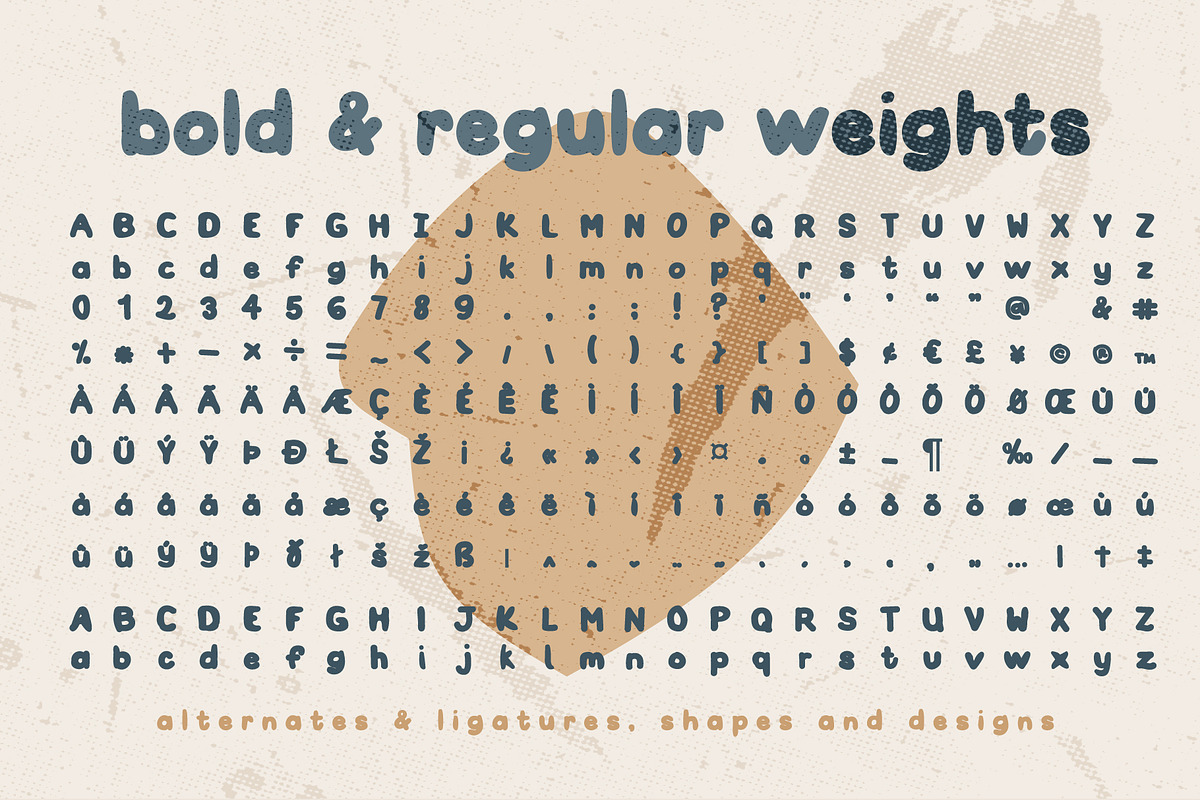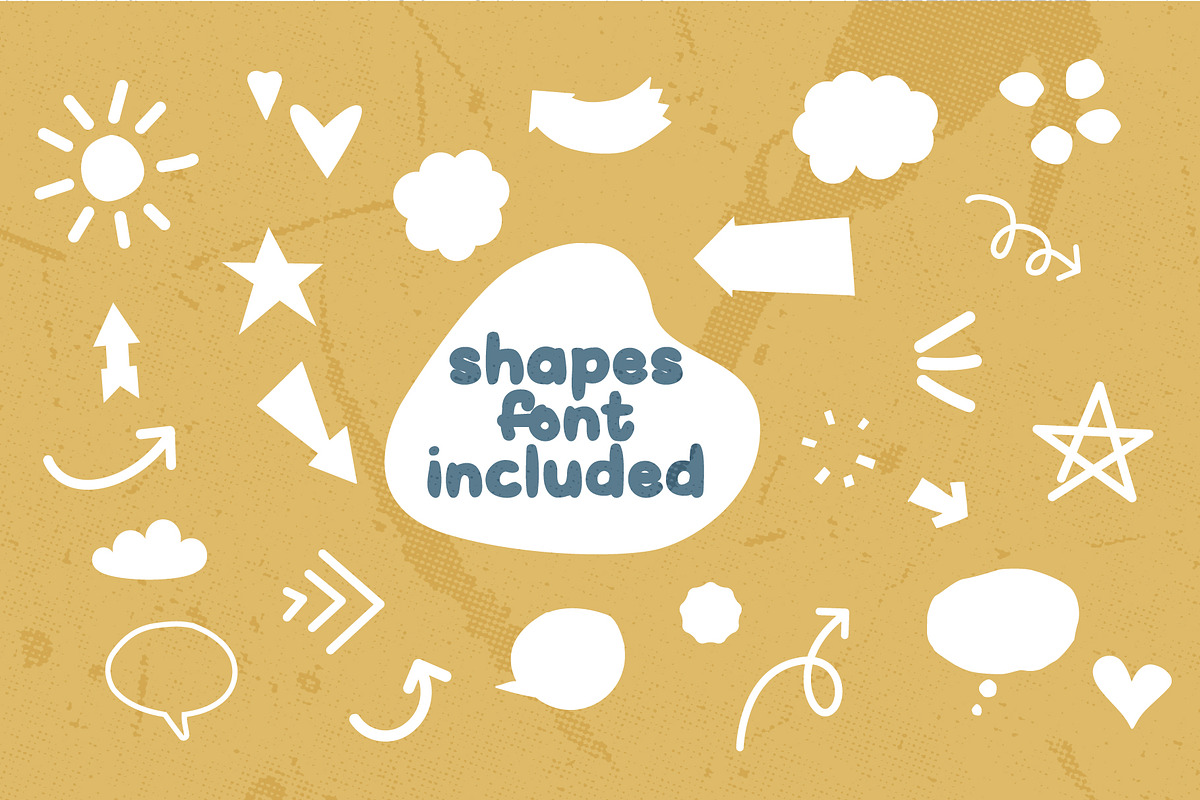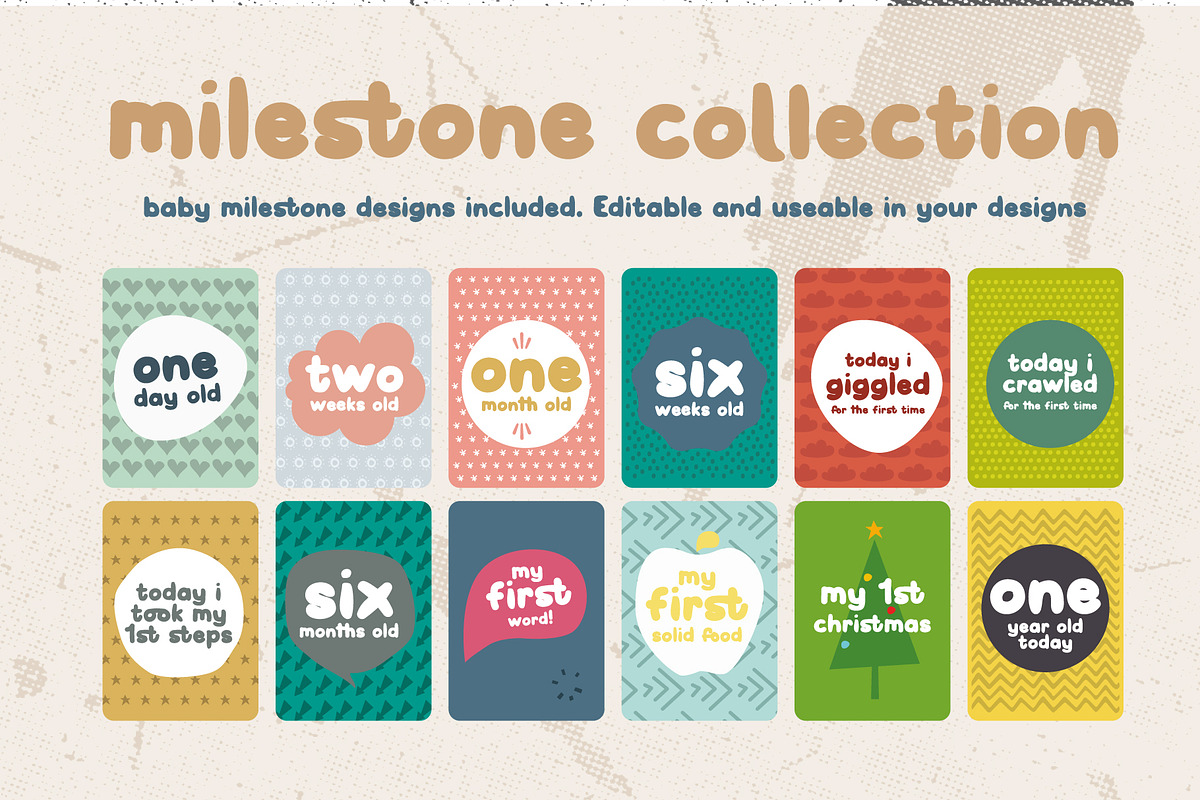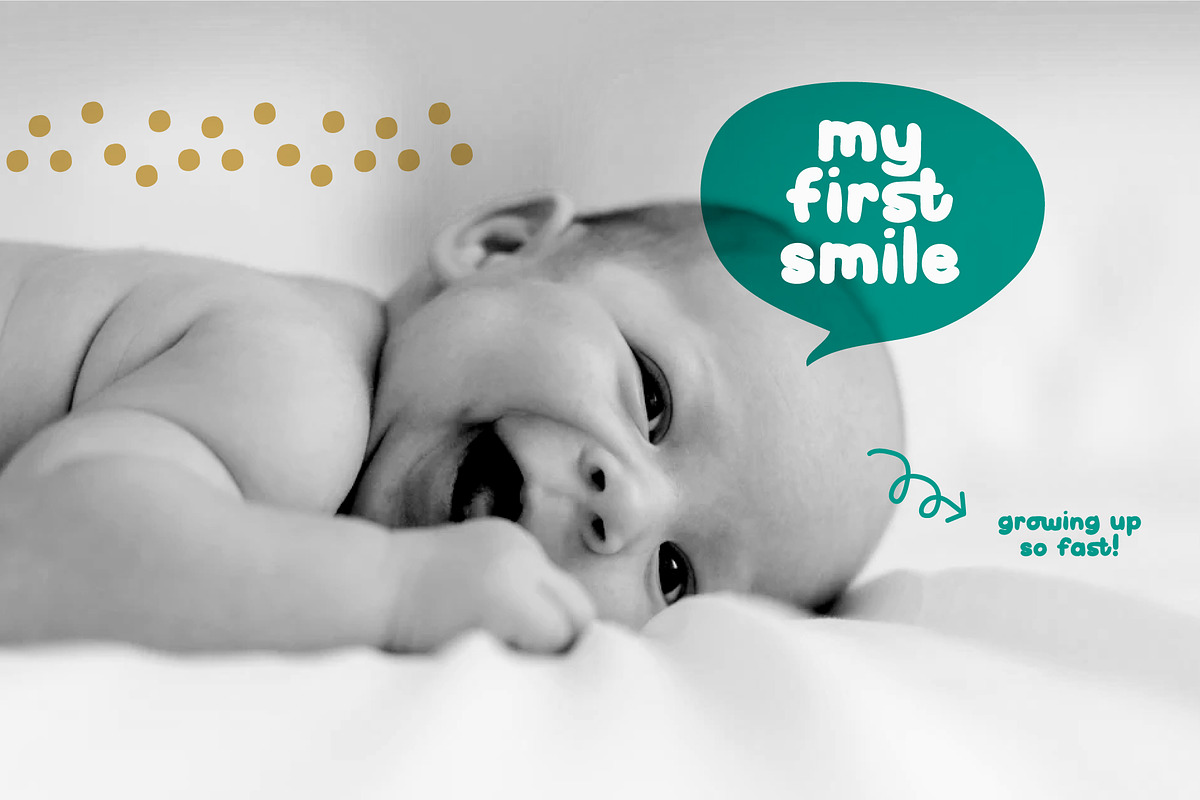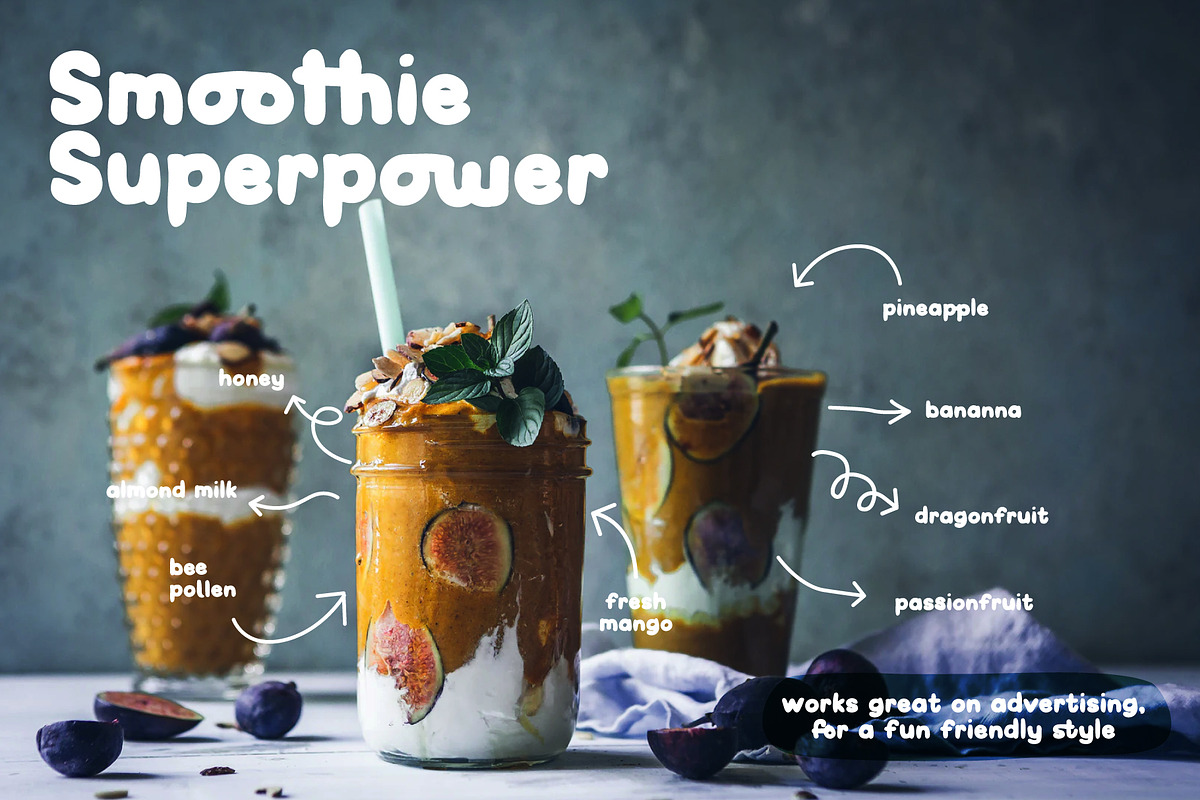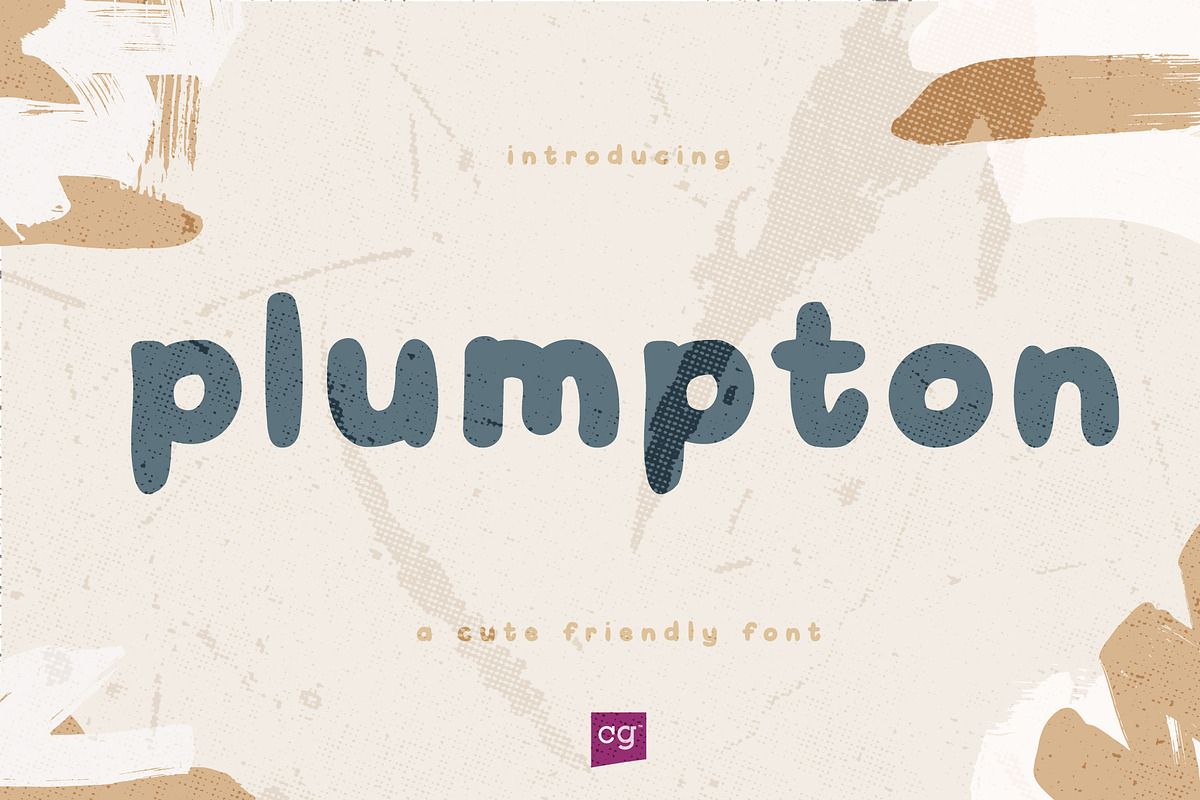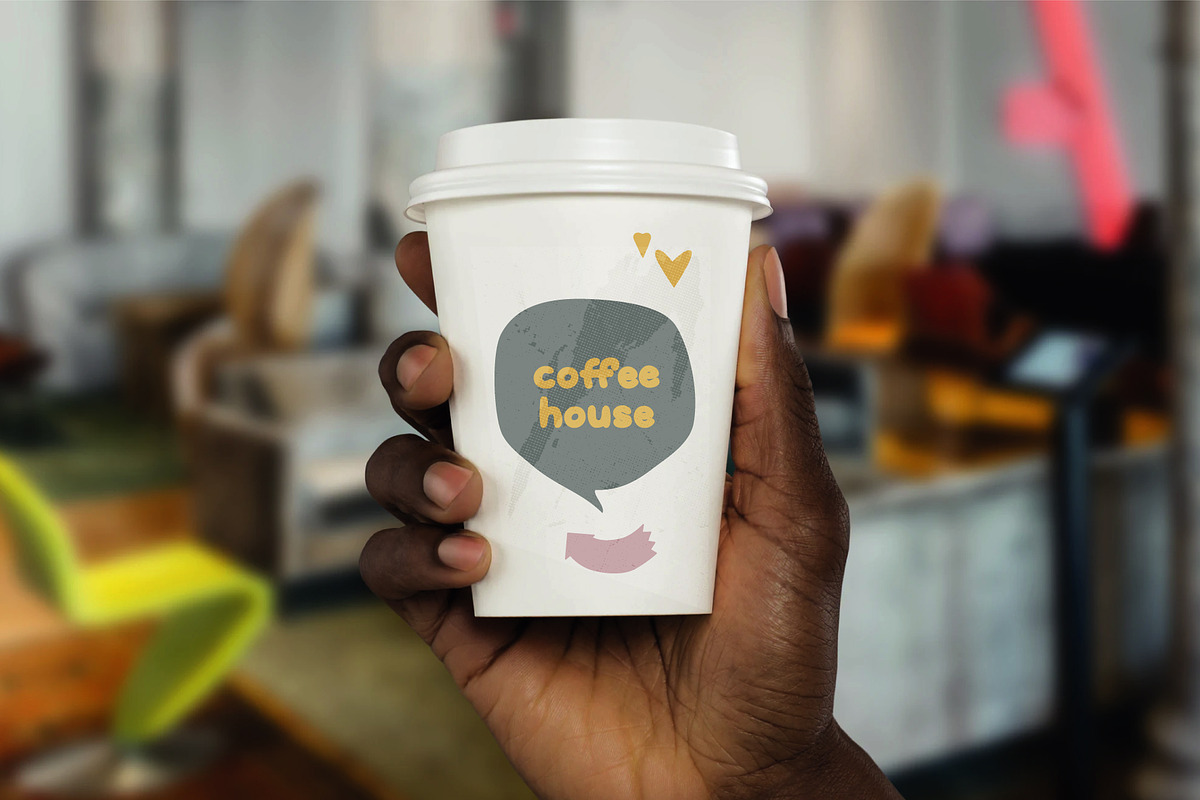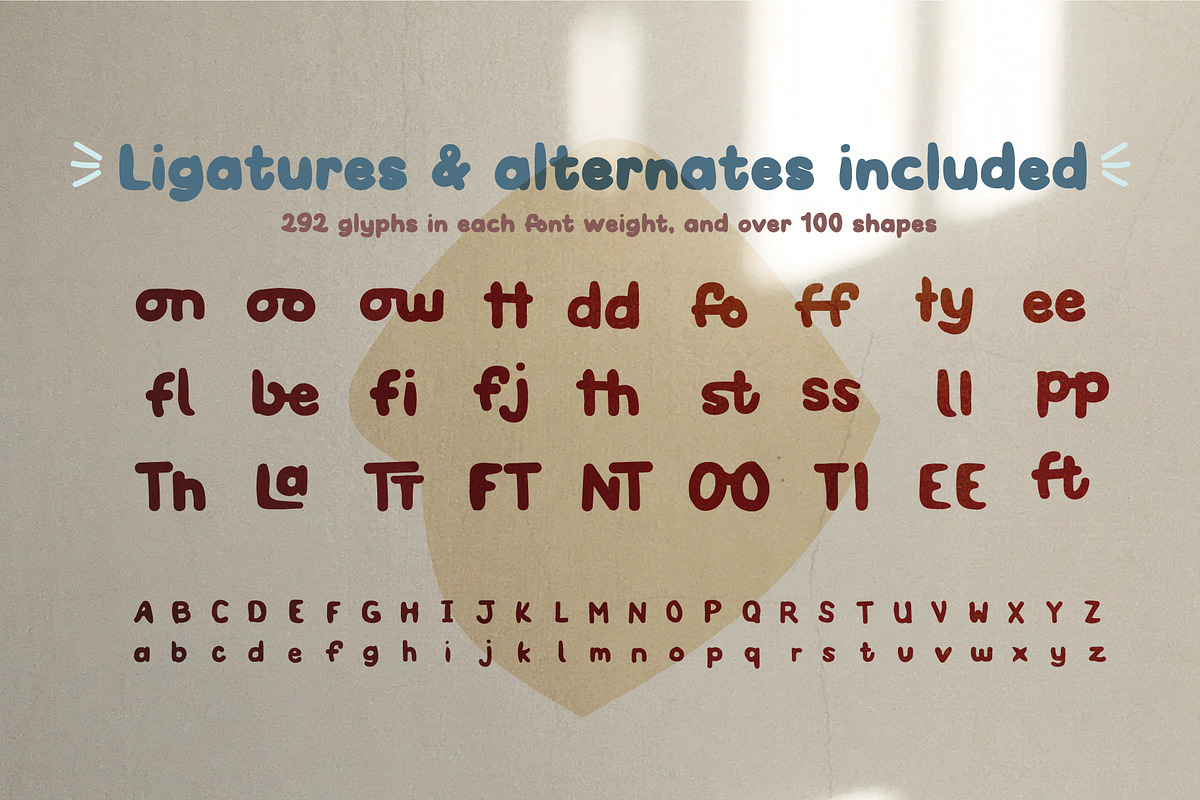
Plumpton Cute Bubbly Font Family
Plumpton Cute Bubbly Font Family is a playful and fun typeface designed to bring joy to any project. With its round, soft letters and cheerful style, it’s perfect for kids’ products, greeting cards, posters, and playful branding.
This bubbly font family offers multiple styles, allowing you to mix and match for different creative looks. Whether you're designing for packaging, social media graphics, or product labels, Plumpton brings a lighthearted, happy vibe that stands out.
- Uppercase and lowercase letters
- Multiple weights and styles
Plumpton’s cute and bubbly aesthetic is ideal for lighthearted, youthful projects. It’s versatile enough for both playful and professional design needs.